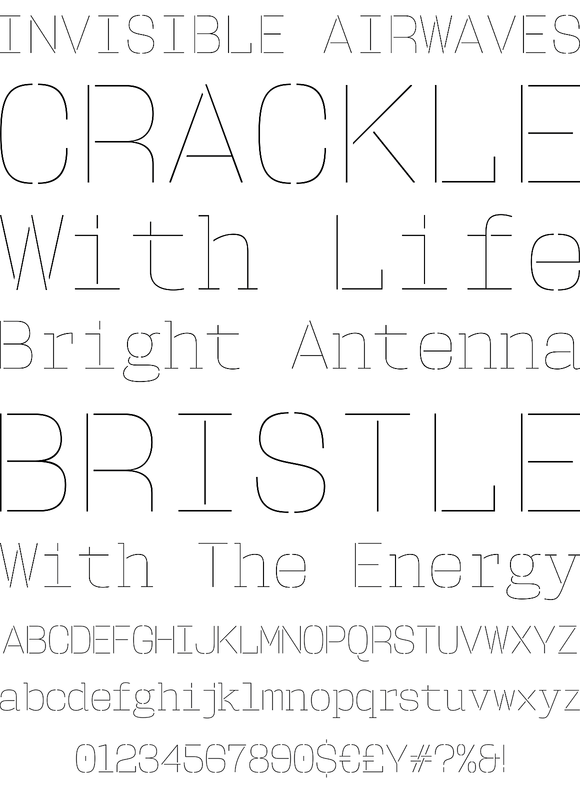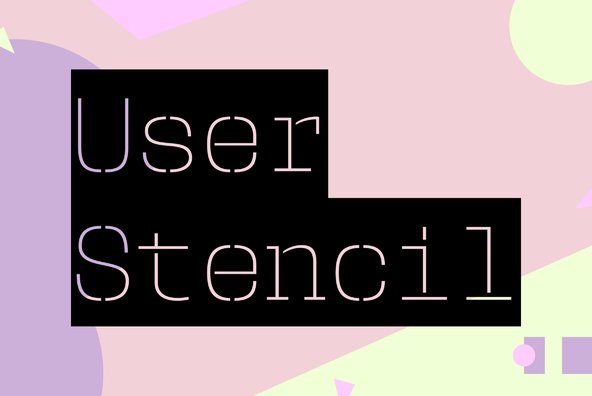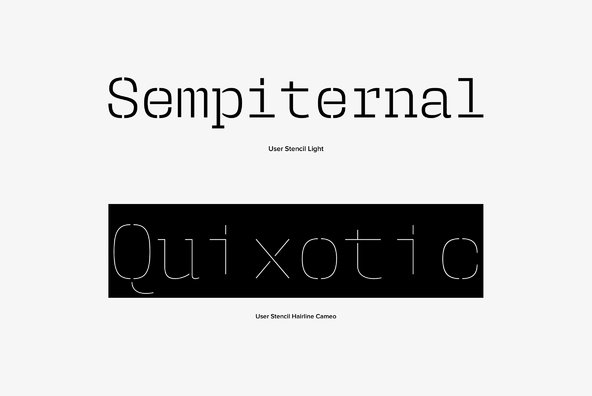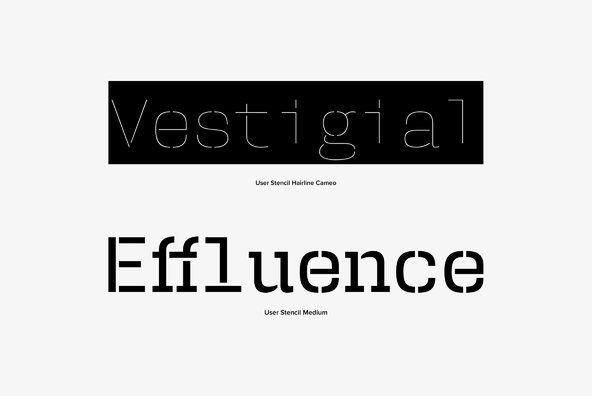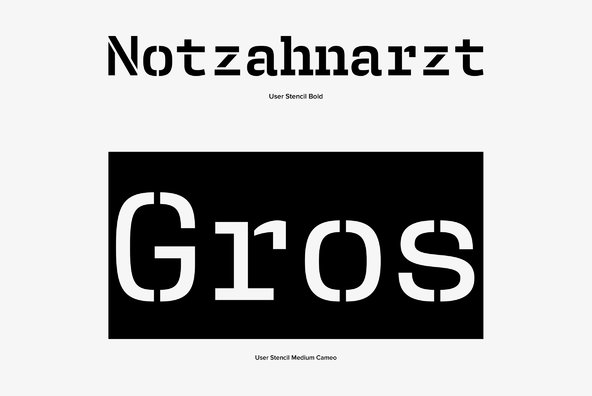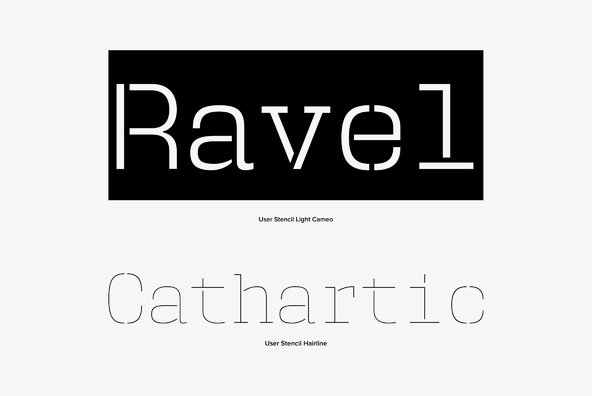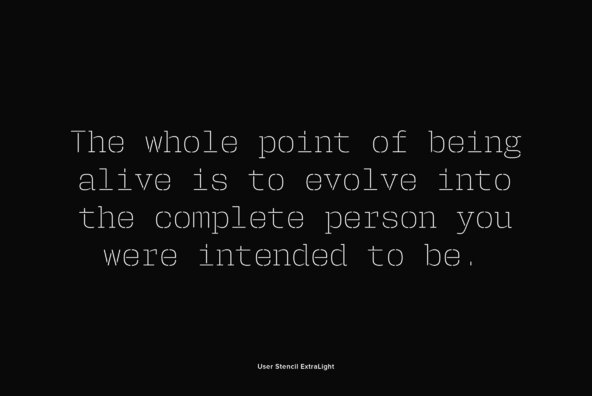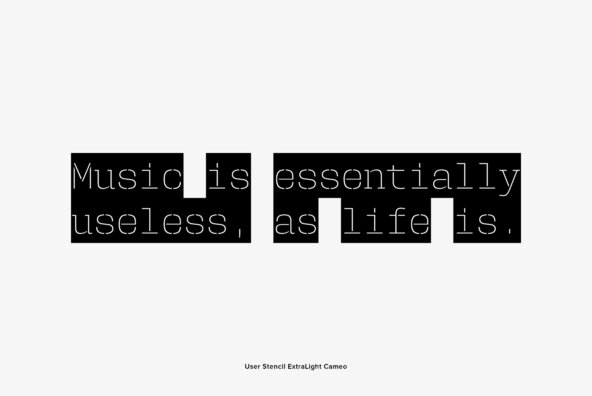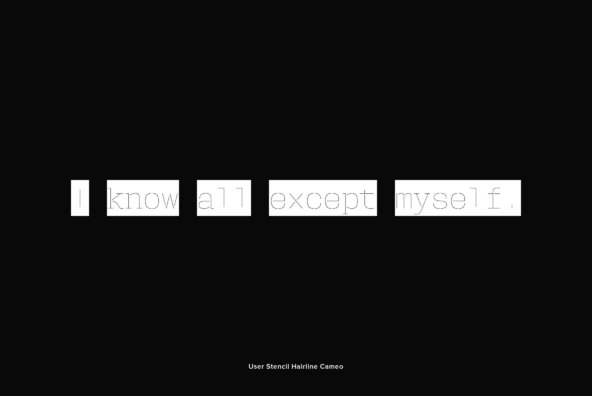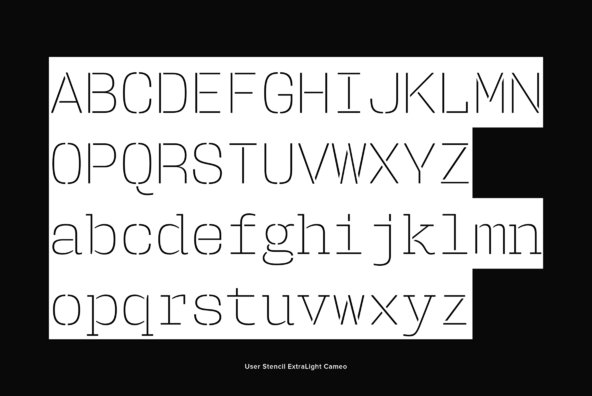
User Stencil
Foundry: DSType
User is a monospaced type family with 30 styles, from Hairline to Bold, divided in Regular, Upright and Stencil, with five weights (Hairline, ExtraLight, Light, Medium and Bold) all with Cameo versions. Complexity and versatility are the keywords for this type family. Despite being a monospaced font, which means there’s no kerning, all the glyphs were designed in order to sit comfortably in the 600 points width, a hard task because some glyphs are too narrow (‘i’ and ‘l’), while others are too wide (‘m’ and ‘w’), but they must fit the same width. The desire for keeping a comfortable readability in User was one of the key elements, therefore we designed several ligatures that fit both single and double space width, allowing to maintain a certain idea of proportional design. In this digital booklet you will find a detailed vision of the anatomy of the typefaces, the amount of characters available, the styles and weights, along with a series of features, specially designed to make User a very versatile and usable type system.